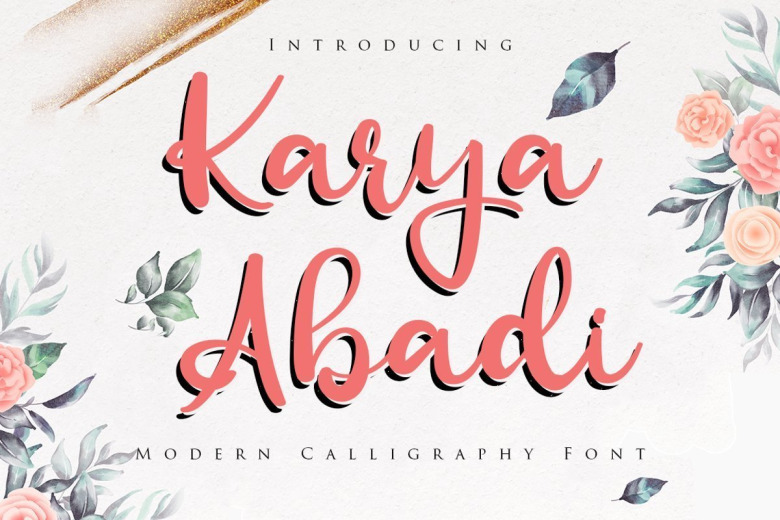
Karya Abadi Bold Calligraphy Font
Karya Abadi Bold Calligraphy Font is gorgeous font that we made special for seasonal event such Christmas, fall, and valentine. It’s look outstanding in any context, whether it’s being used on busy backgrounds or as a standalone headline!